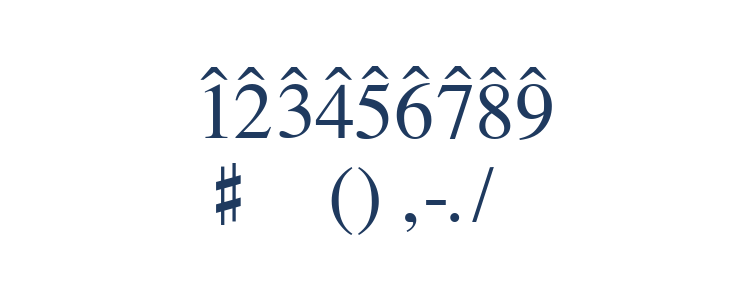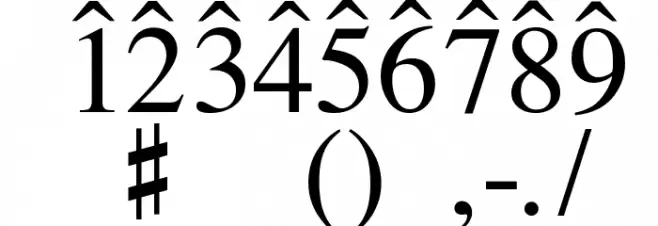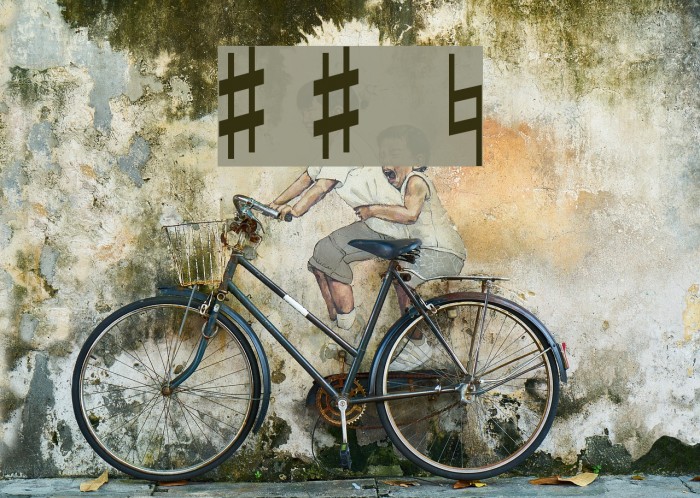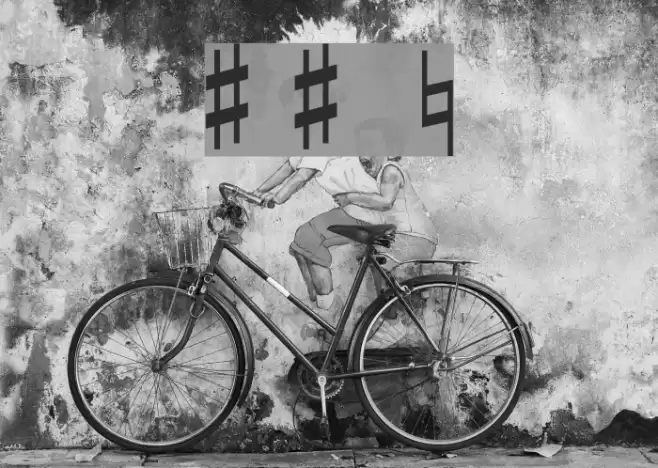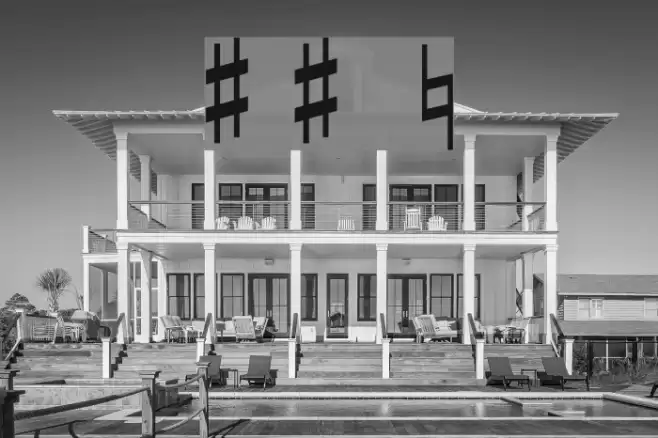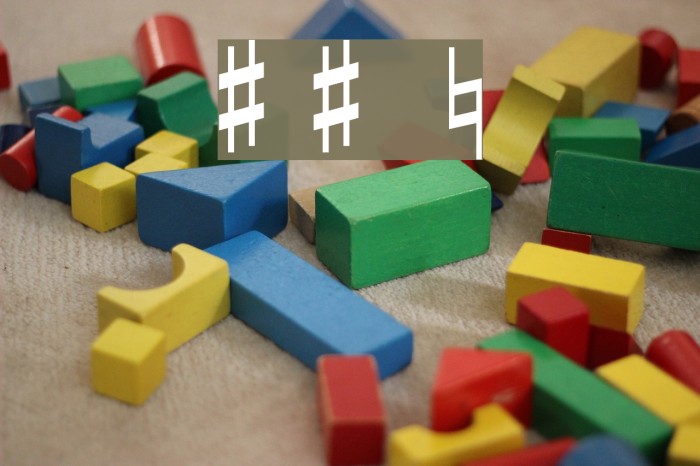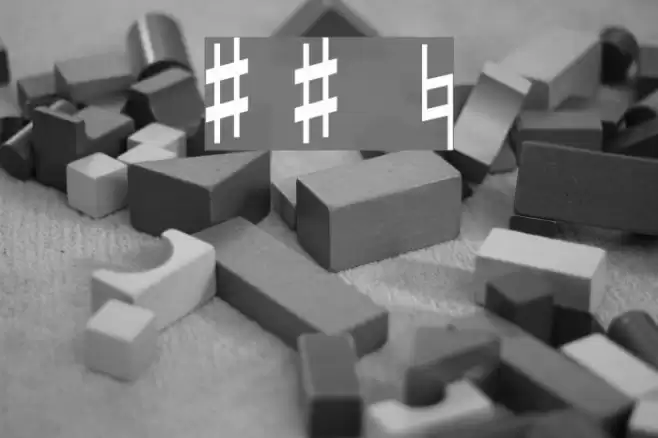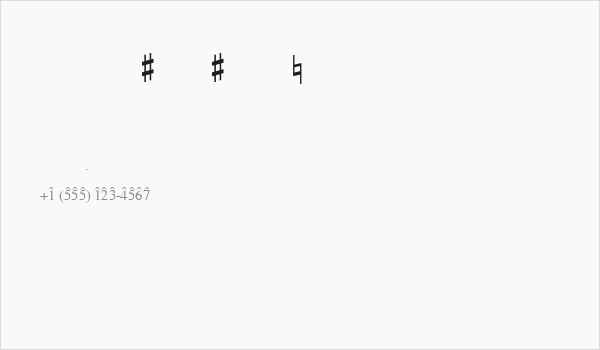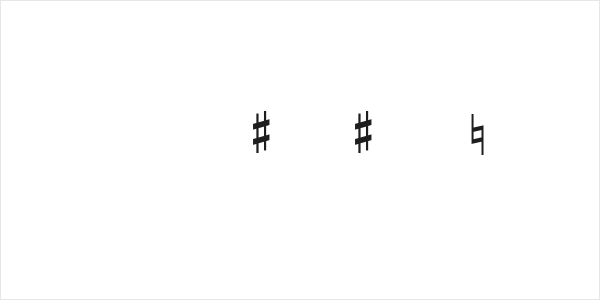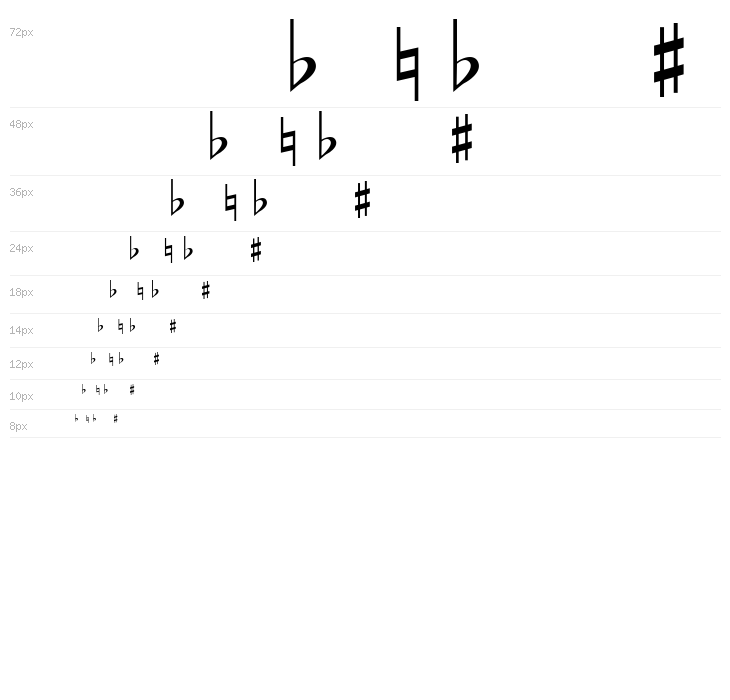
ScaleDegrees [Times] Roman Font
ScaleDegrees [Times] Roman Description
This font features a classic serif style with elegant and traditional letterforms. The numerals are distinct with a slight curvature, providing a sophisticated appearance. The special characters, such as the flat and sharp symbols, are designed to complement musical notation, making it ideal for music-related projects. The overall design maintains a timeless aesthetic, suitable for formal and educational contexts. The characters are well-proportioned, ensuring readability and a professional look.
| Use Case | Music notation, educational materials, formal documents. |
| Proposed Projects | Ideal for music notation, educational materials, formal documents, and classical-themed designs. |